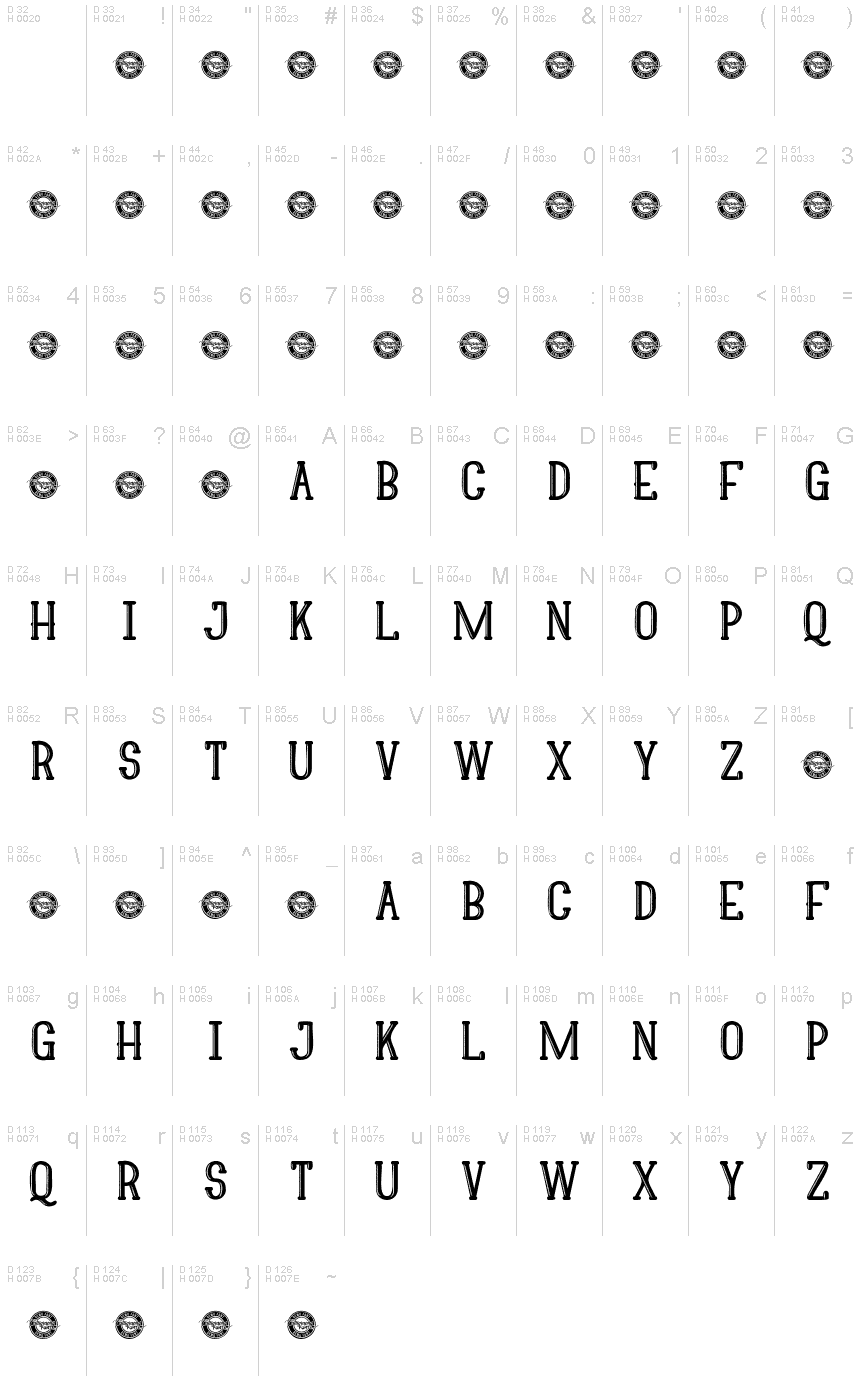
Ralins Demo
Ralins, the semi-light, condensed display font designed by Calligraphy Fonts is the perfect addition to any retro-themed project. Its unique and slightly distorted style adds character and personality to any design. Ideal for vintage logos, retro posters, or even modern-day packaging with a throwback twist. Get creative and diverse with this font typeface that's sure to make your project stand out from the rest!